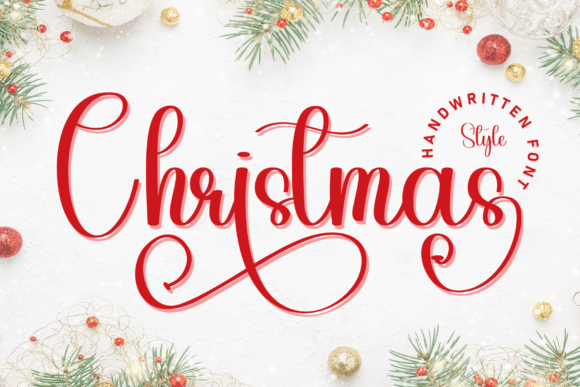
Unleash the Magic of Christmas Font
Imagine you’re rummaging through your grandmother’s old trunk, filled with faded photographs and handwritten letters. You stumble upon a beautiful, handwritten Christmas card, crafted with love and care. The delicate strokes, the whimsical flourishes, and the warm, inviting tone transport you to a bygone era, filled with joy and nostalgia. This is the magic of handwritten fonts, and we’re about to introduce you to one that will make your creative heart skip a beat.
Meet our exclusive Christmas Font, meticulously crafted to captivate and bewitch. This extraordinary handwritten typeface is designed to breathe life into your personal work, from whimsical wedding invitations to heartwarming notes. Its inviting warmth and amicability make it the perfect addition to any designer’s toolkit, amplifying your creative pursuits and leaving an unforgettable mark.
As a designer, you’ll appreciate the value of Christmas Font’s energetic, spirited charm. Its versatility and uniqueness will elevate your projects, making them stand out from the crowd. Whether you’re working on a holiday-themed campaign or a personal project, this font is sure to leave a lasting impression.
Key Features of Christmas Font
- Unique Characteristics: Christmas Font features a festive and playful design, with intricate details and ornaments that evoke the spirit of the holiday season.
Christmas Font Review
I recently had the chance to work with the “Christmas Font” and I must say it’s a mixed bag. ✨ The font’s festive and playful design does bring a lot of holiday cheer to any project. It’s perfect for creating a fun and festive atmosphere, especially for Christmas-themed designs, cards, or social media graphics.
- ✨ The font’s bold and eye-catching design makes it great for headings and titles.
- ✨ The font’s playful feel makes it perfect for creating a fun and festive atmosphere.
However, ⚠️ there are some limitations to consider. The font’s design can be overwhelming if used extensively, and it may not be the best choice for more formal or traditional designs.
- ⚠️ The font’s design can be overwhelming if used extensively.
- ⚠️ May not be the best choice for more formal or traditional designs.
Overall, I’d say the “Christmas Font” is a fun and festive addition to any project, but it’s best used in moderation. If you’re looking to add some holiday cheer to your designs, this font is definitely worth considering.
The Christmas font is ideal for creating festive holiday designs, such as:
- Christmas cards and invitations
- Holiday flyers and brochures
- Seasonal social media graphics
For best results, use the Christmas font in conjunction with festive colors and graphics, such as red and green, snowflakes, and holly.